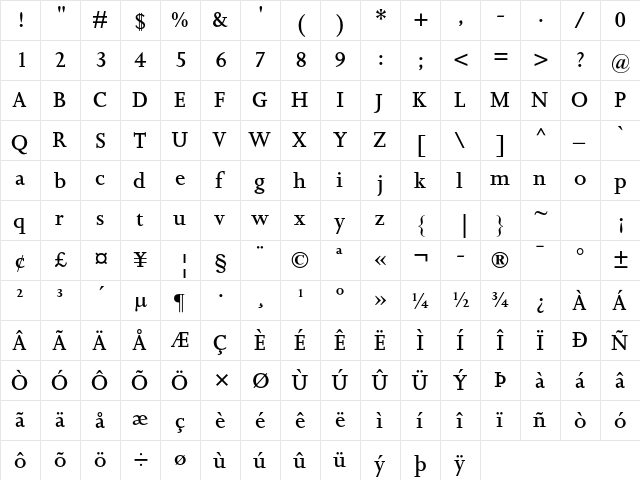
Joanna MT Std Semibold Font Preview
Joanna MT Std Semibold
| Designer | Eric Gill |
Design Context for Joanna MT Std Typeface
Joanna MT Std is a composed and adaptable typeface that performs quietly and consistently across a wide range of design contexts. The heavy weight commands attention and anchors typographic hierarchies.